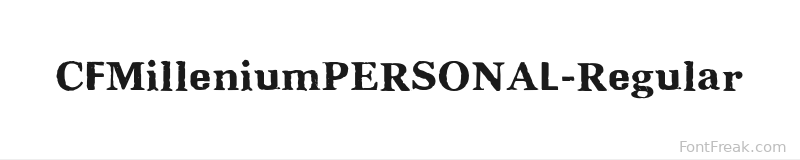
CFMilleniumPERSONAL-Regular
About CFMilleniumPERSONAL-Regular
CFMilleniumPERSONAL-Regular is a distinctive display font designed by Cloutierfontes, classified as a decorative typeface. Its unique visual characteristics include a moderate stroke weight that lends it an inviting yet impactful presence. The font showcases a charming blend of rounded edges and subtle serifs, creating a playful aesthetic that is both modern and nostalgic. The spacing between the letters is thoughtfully balanced, ensuring legibility while enhancing its overall appeal. With a slight contrast in thickness, CFMilleniumPERSONAL-Regular captures attention without overwhelming the viewer, making it a versatile choice for various design applications.
This font excels in specific use cases, such as wedding invitations, where its elegant yet approachable style can convey a sense of celebration and joy. It also shines in movie posters, providing a striking visual that captures the essence of the film while drawing in audiences. Restaurant menus can benefit from its unique charm, helping to establish a memorable brand identity. Additionally, CFMilleniumPERSONAL-Regular is perfect for greeting cards and social media graphics, allowing content creators to express their creativity in a visually appealing manner.
In summary, CFMilleniumPERSONAL-Regular font free download offers a unique blend of charm and usability. Its decorative qualities and versatility make it a valuable addition to any designer's toolkit, allowing for creative expression across a variety of projects. Whether you're crafting invitations or marketing materials, this font is sure to leave a lasting impression.